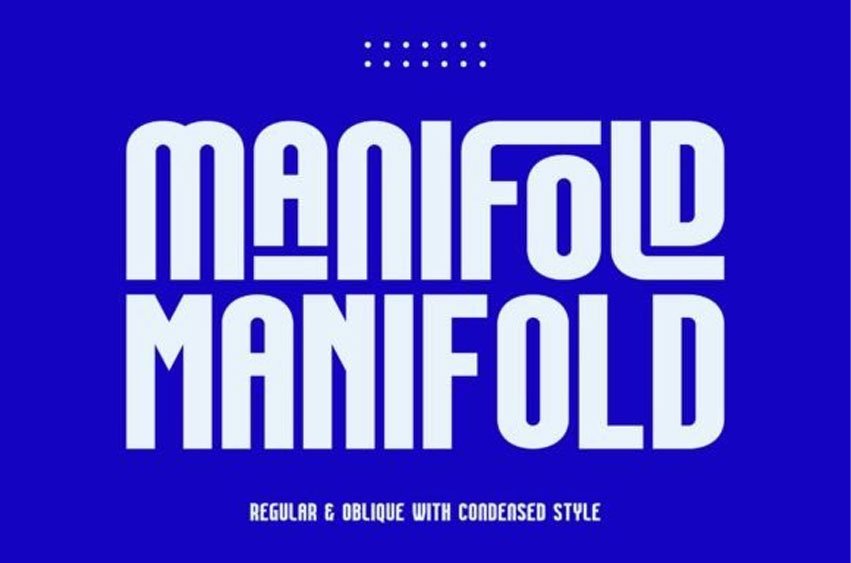
Manifold Font is a strong, geometric, and confident sans serif. Add this font to your favorite creative ideas and notice how it makes them come alive!